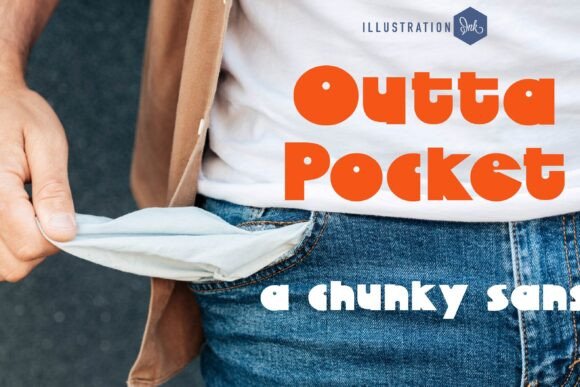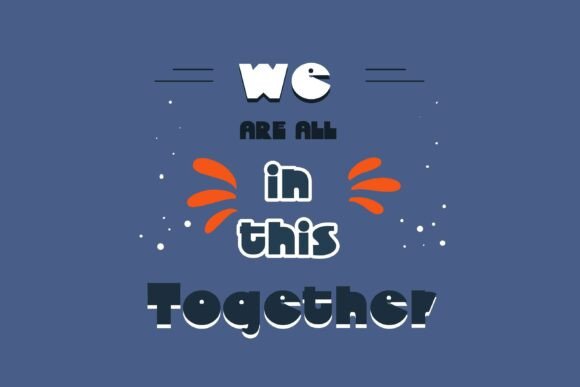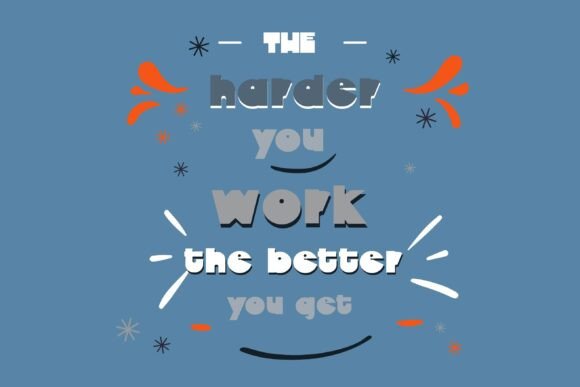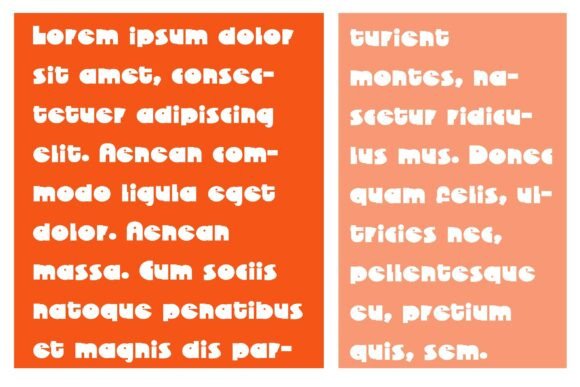
Outta Pocket Font
About the Outta Pocket Font
The Outta Pocket Font offers a perfect balance of form and function for your design needs. This hand-crafted sans serif font is a boxy font with rounded, retro style lettering that is great for titles, displays, posters and more.
Outta Pocket Font’s bold, retro style makes it ideal for headlines, posters, and branding applications where a playful yet confident message is desired. It works exceptionally well for short, impactful text on packaging or merchandise, conveying a sense of fun and approachability. However, its boxy forms and relatively large x-height make it less suitable for body text or UI elements requiring high readability in smaller sizes or long paragraphs.
Pairing Outta Pocket with a clean sans-serif like Montserrat for body copy provides excellent contrast and legibility. For a more vintage feel, consider a serif like Playfair Display. If a more playful design is needed, a script font like Pacifico could be used sparingly for accents.
The overall personality is energetic and retro-modern, fitting brands targeting a younger demographic or projects needing a vibrant, nostalgic aesthetic. Avoid using it for projects requiring sophistication or extreme minimalism.
Outta Pocket Font Usage Examples
Outta Pocket Font Example